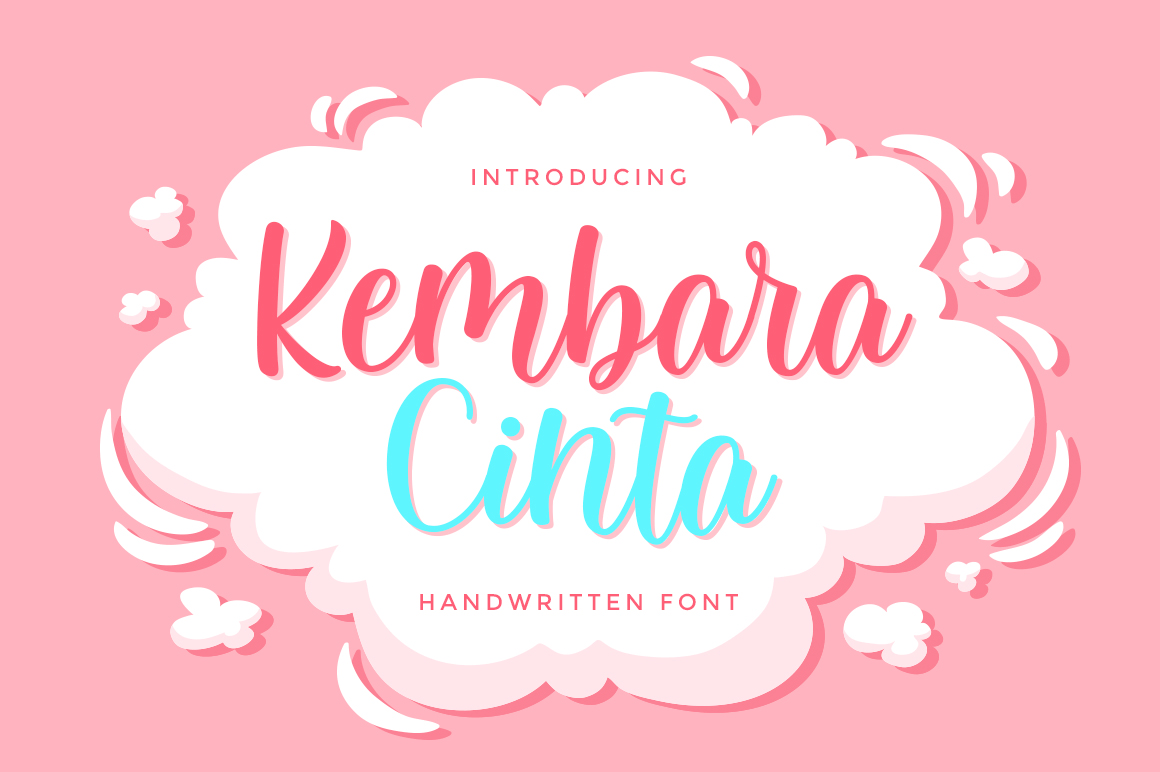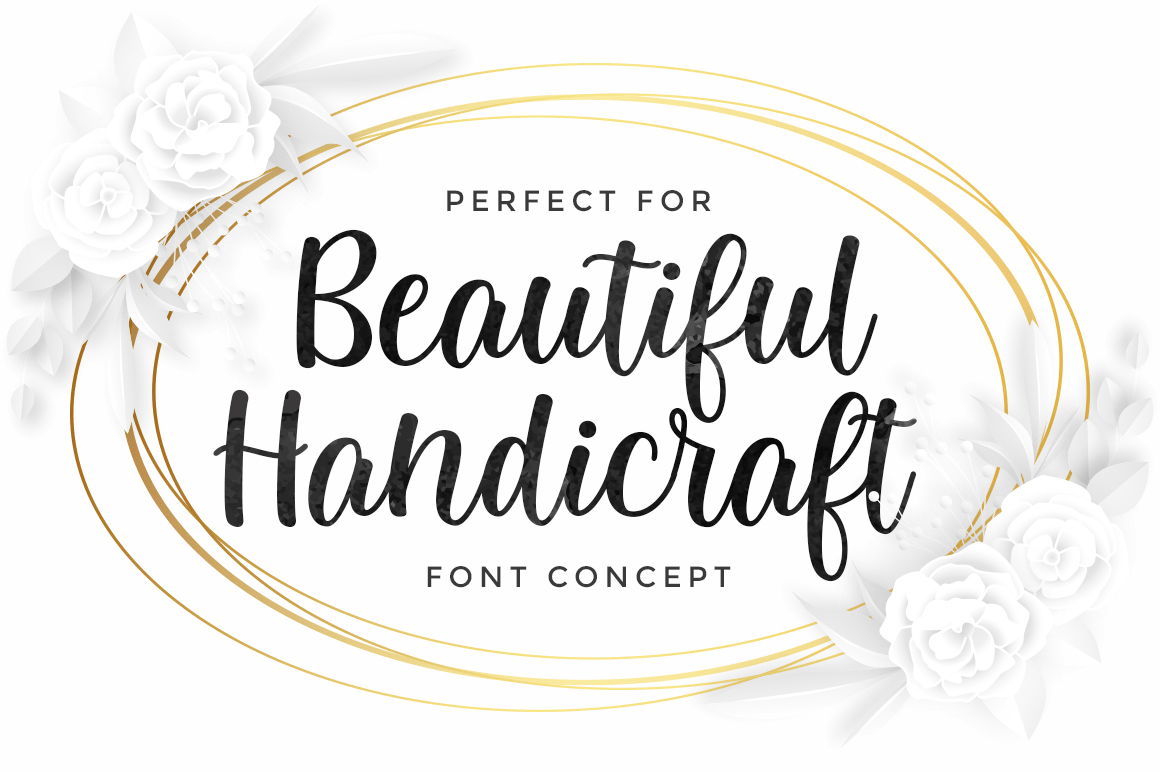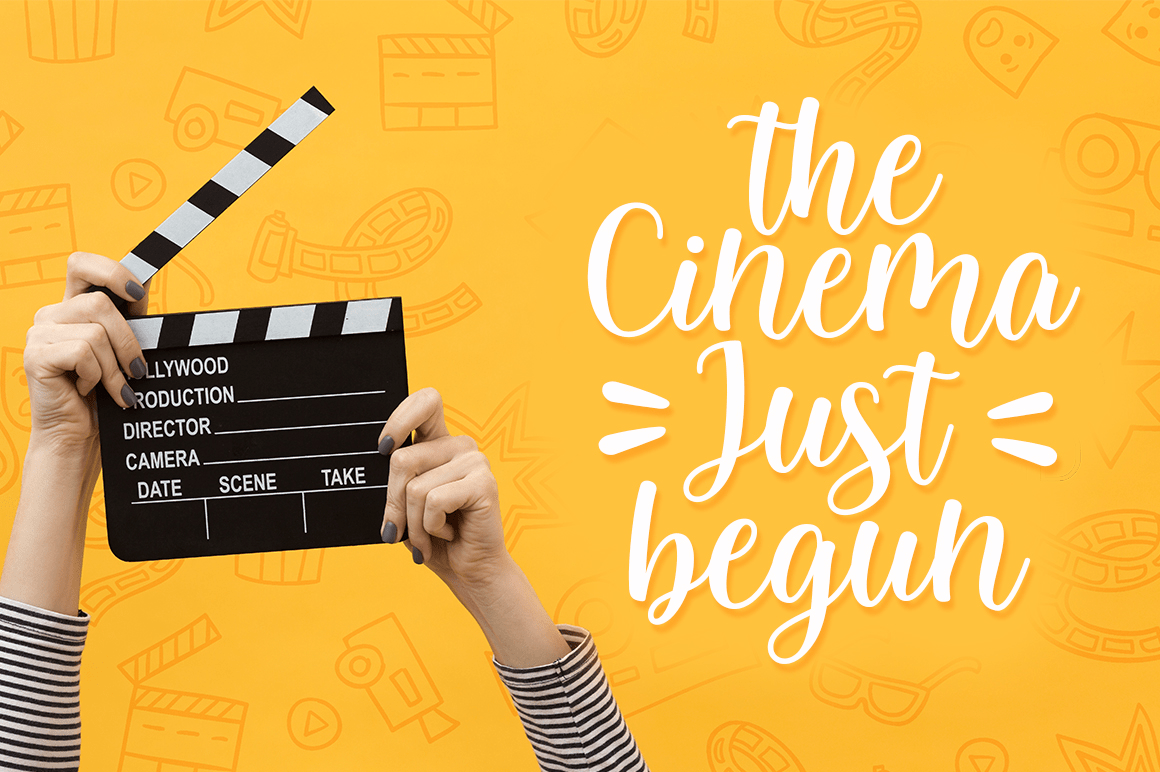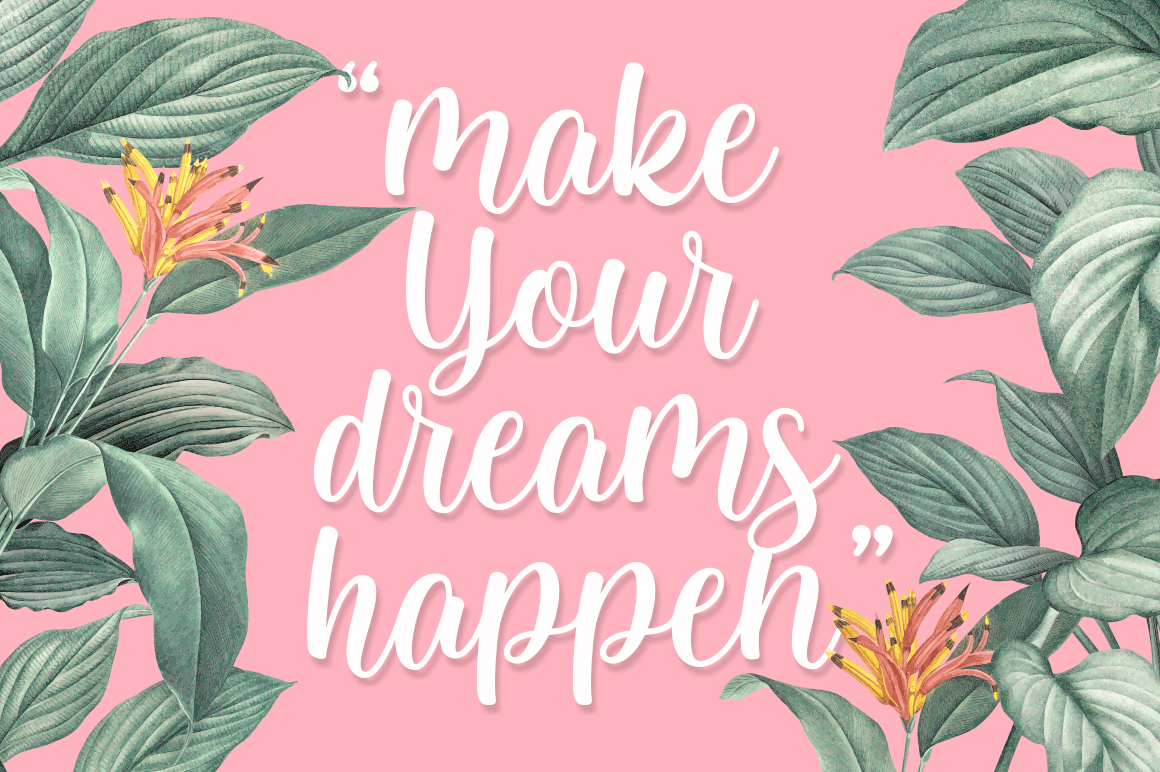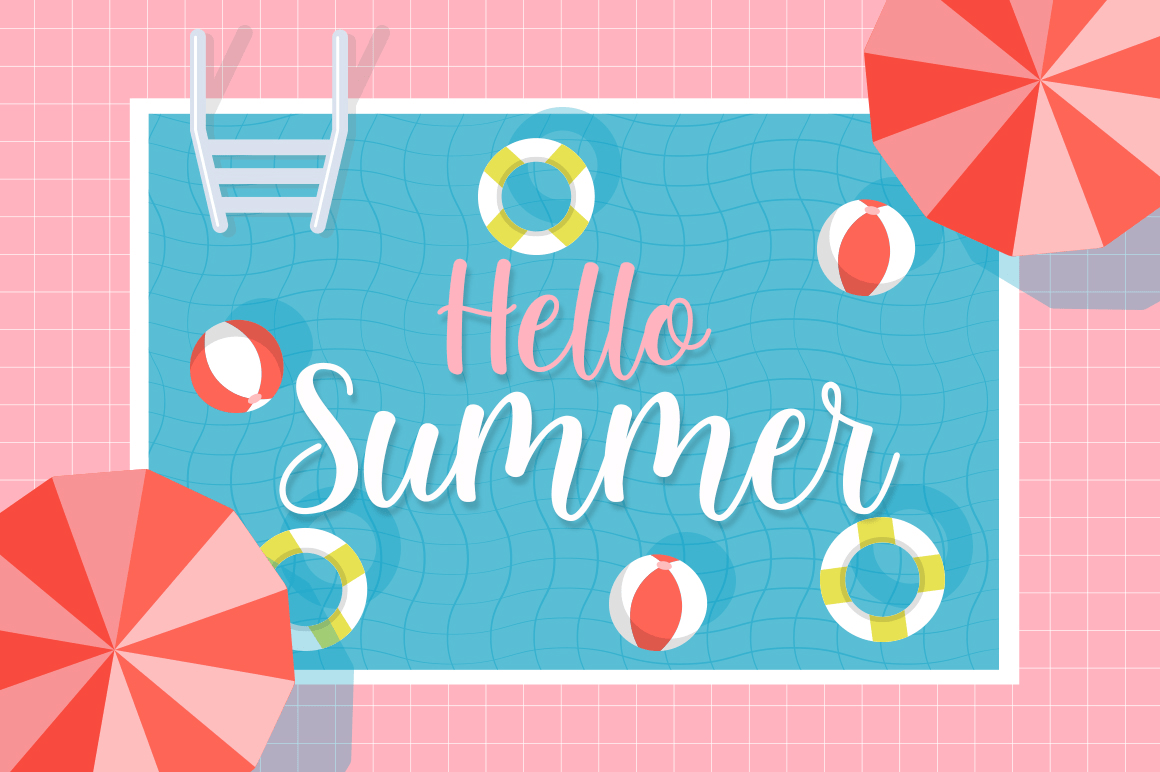
Kembara Cinta
Kembara Cinta - a new fresh & modern hand lettered font, decorative characters and a dancing baseline! So beautiful on invitation like handicraft, greeting cards, branding materials, business cards, quotes, posters, and more design concept!